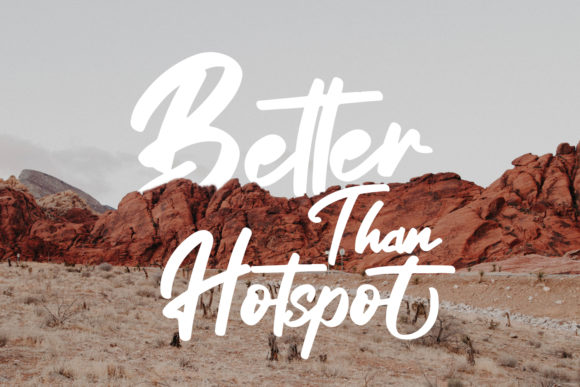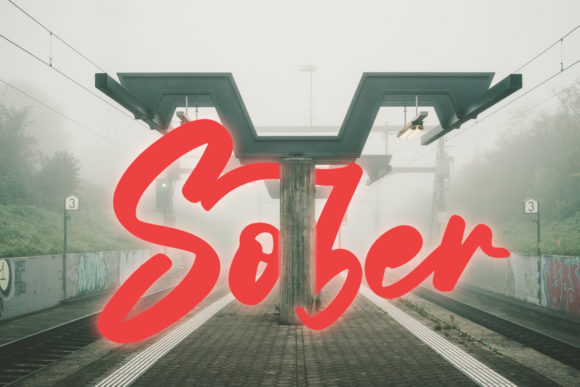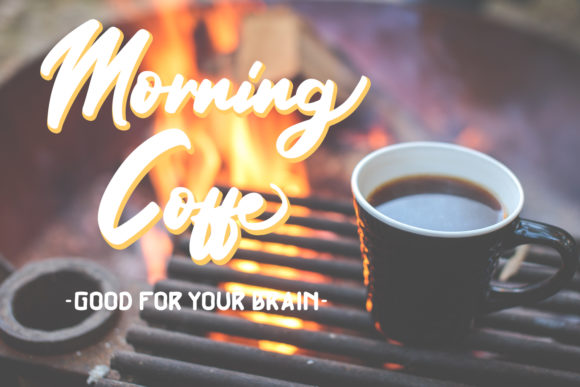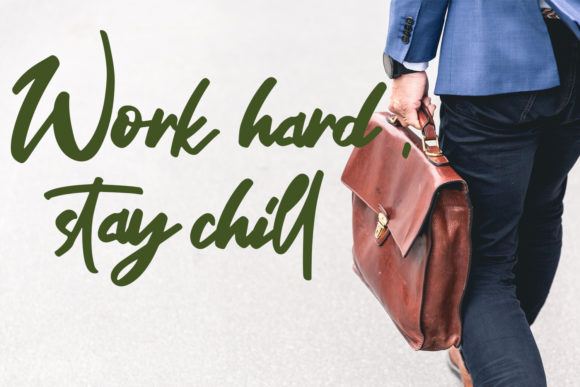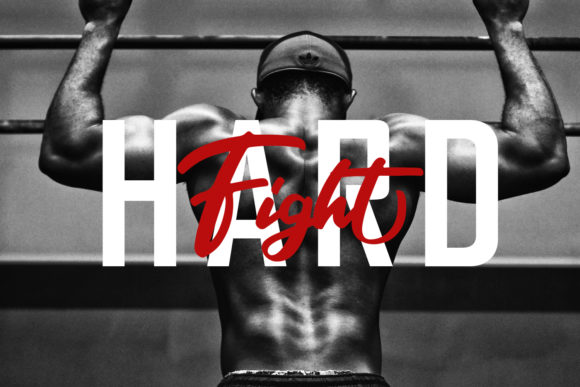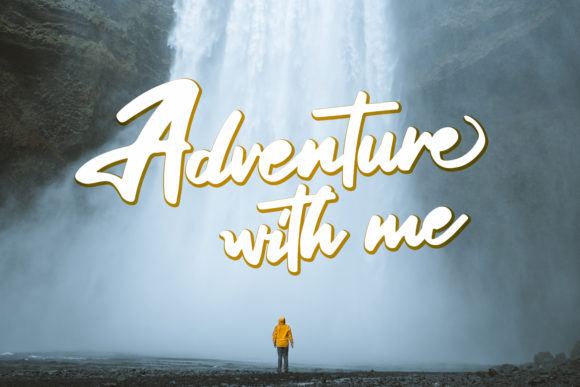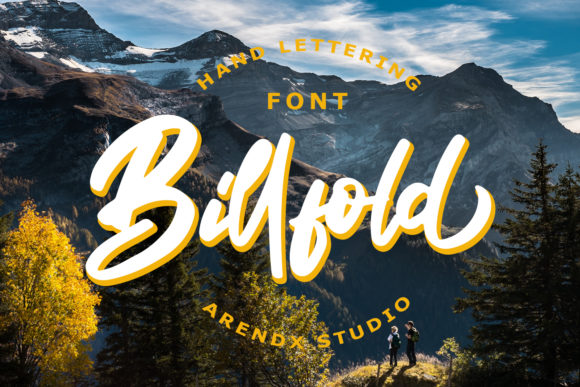
Introducing Billfold Font: The Ultimate Vintage Script for Designers and Crafters
Are you tired of using the same old fonts in your designs? Do you want to add a touch of vintage charm to your projects? Look no further than Billfold Font, a fun and cool script that’s sure to inspire your creativity. With its unique style and nostalgic feel, Billfold Font is the perfect choice for designers and crafters looking to make their designs stand out.
The Story Behind Billfold Font
Billfold Font is a script font that’s inspired by the classic billfolds of the past. Its vintage style is reminiscent of old-fashioned wallets and purses, evoking a sense of nostalgia and timelessness. The font’s creator aimed to capture the essence of a bygone era, when things were a little more rustic and a lot more charming. The result is a font that’s both fun and sophisticated, perfect for adding a touch of personality to your designs.
What Makes Billfold Font So Special?
So, what sets Billfold Font apart from other fonts out there? For starters, its unique style is unlike anything you’ve seen before. The font features elegant swashes and flourishes, giving it a sense of movement and energy. The letters themselves are carefully crafted to resemble handwritten script, with subtle imperfections and variations that add to the font’s charm.
Another thing that makes Billfold Font special is its versatility. Whether you’re designing a logo, a poster, or a social media graphic, this font is sure to make your design pop. It’s perfect for a wide range of projects, from rustic and vintage-themed designs to modern and edgy ones. And with its high-quality design, you can use it for both personal and commercial projects.
Billfold Font is more than just a font – it’s a design inspiration. With its unique style and nostalgic feel, it’s sure to spark your creativity and inspire you to try new things. Here are a few ideas to get you started:
- Use Billfold Font to create a vintage-themed logo for your business or brand.
- Add a touch of elegance to your social media graphics with this beautiful script font.
- Create a stunning poster or flyer with Billfold Font as the centerpiece.
- Use the font to add a personal touch to your craft projects, such as handmade cards or gift tags.
In conclusion, Billfold Font is a fun and cool script font with a vintage style that’s sure to inspire your creativity. With its unique style, versatility, and high-quality design, it’s the perfect choice for designers and crafters looking to make their designs stand out. So why settle for ordinary fonts when you can use Billfold Font to add a touch of nostalgia and charm to your designs? Get inspired by its unique style, and turn any design idea into a true standout!